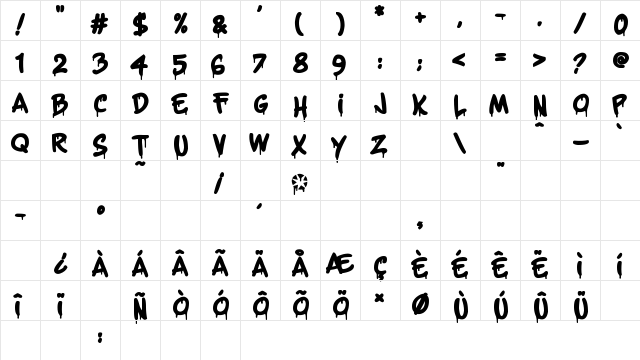
Urban Heroes Regular
| Designer | IMAGEX |
Design Context for Urban Heroes Typeface
Urban Heroes is a composed and adaptable typeface that performs quietly and consistently across a wide range of design contexts.